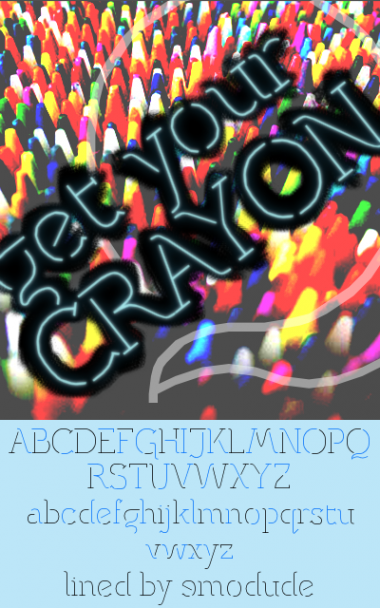
For this font I aimed to make a block sans with bridges in unconventional locations...and then it became a monoline semi-geometric slab~ And I sorta regret starting on this so late...
Suggestions are welcome. I know the pointy bits of W and M are wonky but I don't know how to fix those ...
Gives the feeling of being embedded. Awesome job, 10/10 & fave. :)
Great work!
Great, great, great! Based off Museo, by any chance?
I love G M Q, but g is not my fave (binocular perchance?), and v seems horisontally backwards.
All in all, 10/10 + fave!
Great again!
@demonics: Thanks for the suggestions; I've flipped the bottoms of V/v and tried a new g (I totally forgot about trying the double-storey g haha!) The old g is now at $ (: I guess I might have been subconsciously influenced by Museo but it wasn't an active choice~
Urgh a rushed sample. If I have more time next week I'll do a better job.
pretty :o
The lowercase is FANTASTIC. I love the new g! :D
What a delightfully light and airy design - love it. 10/10
Fine work, excellent! 10/10
A font for the titles of dreams :P
amazing! 10/10
I'm with the guys. Excellent! My 10 4U too.
love thoses curves Great 10
I've added the numbers. They have always been my weak point so any suggestions are welcome!
very nice ... 9/10
Great font for Plasma cutting!